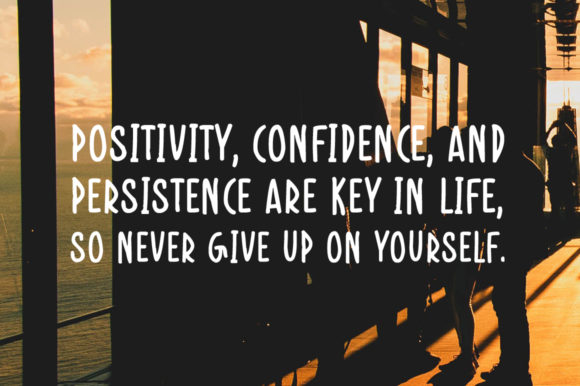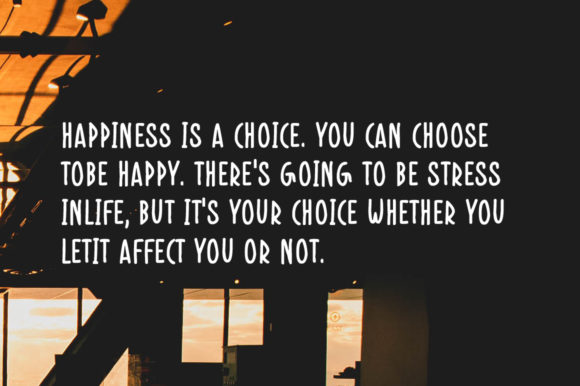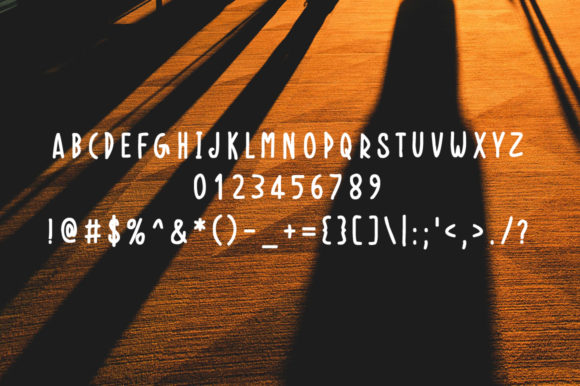
Dinkiest Font: Add a Whimsical Charm to Your Design Projects
Are you tired of using the same old fonts in your design projects? Do you want to add a touch of whimsy and fun to your creations? Look no further than the Dinkiest Font! This bold and playful display font is perfect for designers and crafters who want to make their projects stand out from the crowd.
What is Dinkiest Font?
Dinkiest is a fun and bold display font with a whimsical charm. Its unique and quirky design makes it perfect for a variety of design projects, from posters and flyers to social media graphics and crafts. With its bold and eye-catching letters, Dinkiest Font is sure to turn any design project into an eye catcher!
Key Features of Dinkiest Font
- Bold and Playful Design: Dinkiest Font features bold and playful letters that are sure to grab attention.
- Whimsical Charm: The font’s unique design gives it a whimsical charm that is perfect for adding a touch of fun to your design projects.
- Display Font: Dinkiest Font is a display font, making it perfect for headlines, titles, and other large text elements.
- Easy to Read: Despite its bold and playful design, Dinkiest Font is easy to read, making it perfect for use in a variety of design projects.
Uses for Dinkiest Font
Dinkiest Font is a versatile font that can be used in a variety of design projects, including:
- Posters and Flyers: Use Dinkiest Font to create eye-catching posters and flyers that are sure to grab attention.
- Social Media Graphics: Add a touch of whimsy to your social media graphics with Dinkiest Font.
- Crafts: Use Dinkiest Font to add a personal touch to your craft projects, such as handmade cards and gift tags.
- Signs and Banners: Dinkiest Font is perfect for creating eye-catching signs and banners for events and businesses.
Tips for Using Dinkiest Font
Here are a few tips for using Dinkiest Font in your design projects:
- Use it as a Headline Font: Dinkiest Font is perfect for use as a headline font, where its bold and playful design can really shine.
- Pair it with a Simple Font: For body text, pair Dinkiest Font with a simple font to create a nice contrast.
- Experiment with Colors: Dinkiest Font looks great in a variety of colors, so don’t be afraid to experiment and find the perfect color for your design project.
If you’re looking for a fun and bold display font with a whimsical charm, look no further than Dinkiest Font. With its unique and quirky design, Dinkiest Font is perfect for designers and crafters who want to add a touch of fun to their projects. Whether you’re creating posters, social media graphics, or crafts, Dinkiest Font is sure to turn your design project into an eye catcher!